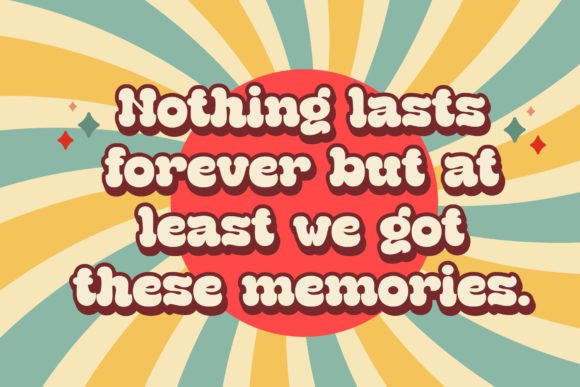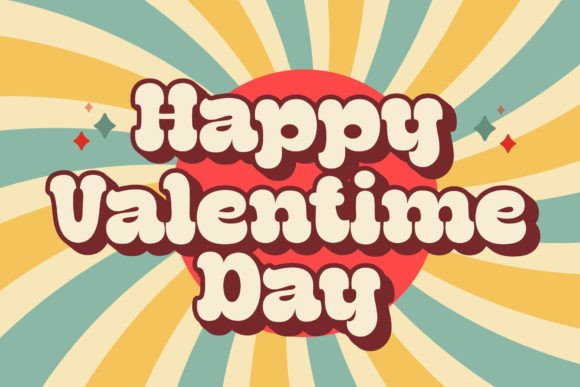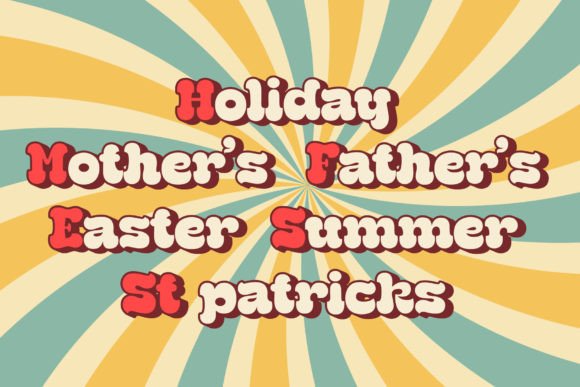
Introduction to Retro Lover Font
Retro Lover is a vintage-style groovy retro font.
Inspired by the retro typography and typography of the 60s 70s and 80s, anything written in this font is instantly recognizable and will grab attention It has a unique shape where every corner is softer and more rounded.
Key Features of Retro Lover Font
Why Choose Retro Lover Font?
Retro Lover Font offers exceptional quality and versatility, making it a valuable addition to your design toolkit. Whether you’re creating for personal projects or commercial use, Retro Lover Font delivers professional results.